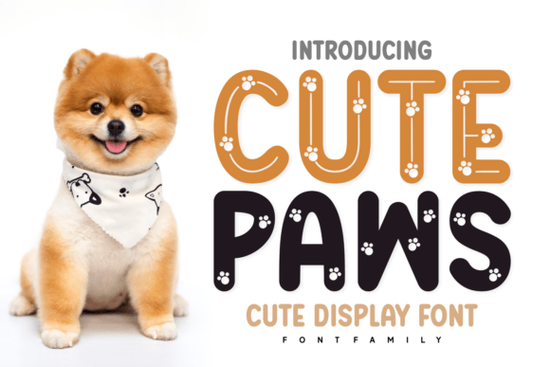
If you’ve been searching for a font that feels like a warm hug in type form, Cute Paws Font might be exactly what your next project needs. It’s playful without being childish, sweet without being saccharine and it slots right into projects where charm matters more than formality. Whether you’re designing birthday invites for kids, packaging for handmade bath bombs, or printables for your Etsy shop, this decorative font adds personality with just a few keystrokes.
You don’t need to be a professional designer to make it work. The letters have soft curves, rounded terminals, and subtle paw-inspired details that peek out gently enough to catch the eye, not so much that they overwhelm. Think of it as the typographic equivalent of a kitten napping on your keyboard: cozy, cute, and quietly delightful.
What kinds of projects does Cute Paws Font work best for?
This font shines when used in contexts that call for warmth and whimsy. Here are a few places where it really fits:
- Kids’ party invitations – Pair it with pastel colors or animal illustrations for instant appeal.
- Children’s book titles or chapter headers – Especially if your story features friendly animals or gentle adventures.
- Print-on-demand products like mugs, tote bags, or onesies – Customers love designs that feel personal and handcrafted.
- Social media graphics for parenting bloggers, pet influencers, or small craft businesses.
- Classroom decor or teacher resources – Bulletin boards, reward charts, or printable worksheets gain instant cheer.
It’s also surprisingly versatile in mixed-font pairings. Try setting body text in something clean and neutral like Flame Font for contrast and letting Cute Paws handle headlines or accent words. That balance keeps things readable while still giving your design that signature sweetness.
How does it compare to other playful fonts on Creative Fabrica?
If you’ve browsed decorative fonts before, you’ve probably seen options that lean heavily into cartoonish exaggeration or overly bubbly letterforms. Cute Paws avoids those extremes. It’s got character, sure but it doesn’t shout. For something with a bit more edge, you might check out Dripx Font, which leans into graffiti-inspired drips and urban energy. Or if you want springtime vibes instead of cuddly ones, Spring Smile Font brings blooming florals into every curve.
But if your goal is approachable, gentle, and universally likable? This one’s hard to beat. You can even layer it subtly over photos or watercolor backgrounds without losing legibility a rare win for decorative typefaces.
Any tips for getting the most out of this font?
Absolutely. A few simple tricks go a long way:
- Don’t go too small. Decorative fonts lose their charm at tiny sizes. Keep headlines above 24pt for print, or 32px for web, to let those details breathe.
- Add spacing. Slightly increased letter-spacing (tracking) helps the rounded shapes stand out without feeling cramped.
- Use color thoughtfully. Soft pinks, mint greens, or warm yellows complement the vibe. Avoid harsh contrasts unless you’re going for irony.
- Mix weights if available. Some versions include bold or outline styles great for layering or drop shadows.
Also, consider pairing it with hand-drawn icons or doodle-style clipart. There’s a natural synergy there that makes your whole layout feel cohesive, like everything was sketched together in one happy afternoon.
Where to start today
If you’re ready to try it out, begin with something small a quote graphic, a label for homemade jam, or a “thank you” card. See how it feels in your workflow. Does it spark joy? Does it fit your brand voice? Sometimes the best way to know if a font is “the one” is to use it once, lightly, without pressure.
And if you’re still browsing? Don’t skip checking out this page it includes real user previews, sample phrases, and sometimes even mockups showing the font in action. Seeing it on a mug or t-shirt can help you visualize its potential better than any description.
Fonts like this don’t solve big design problems but they do add little moments of delight. And in a world full of sterile sans-serifs, that’s worth something.